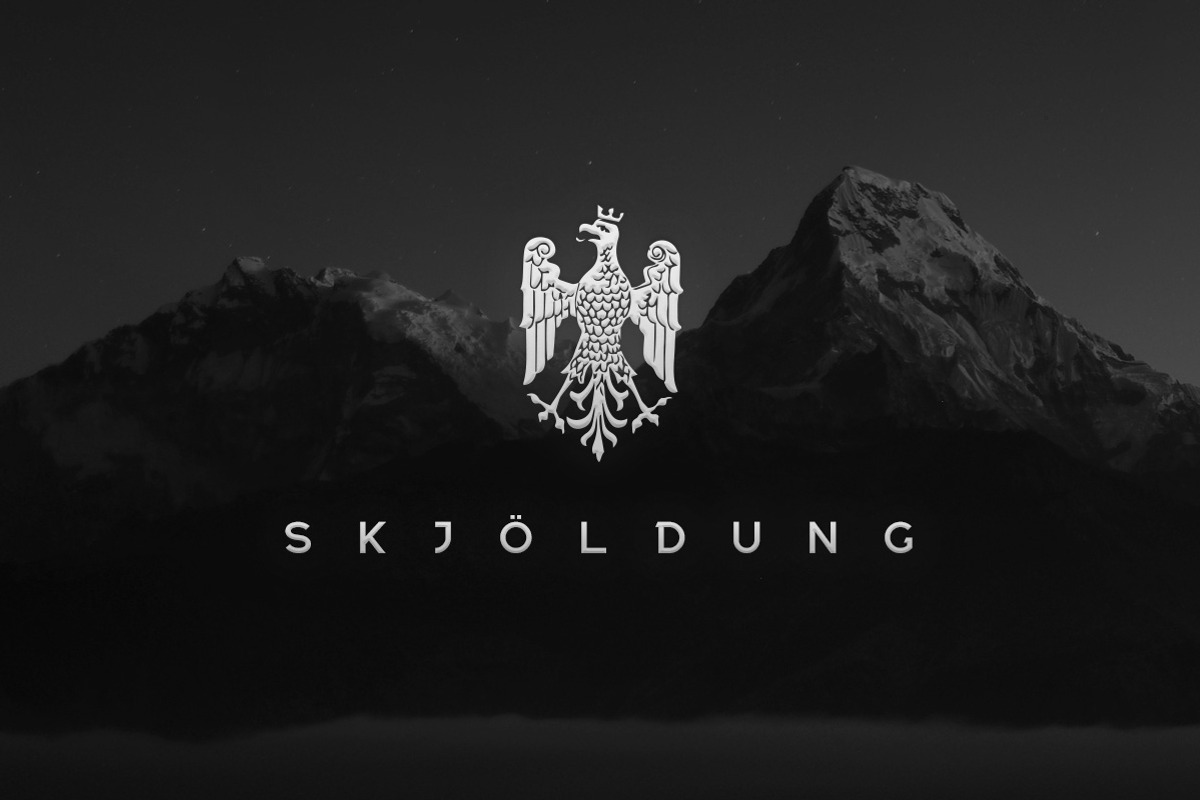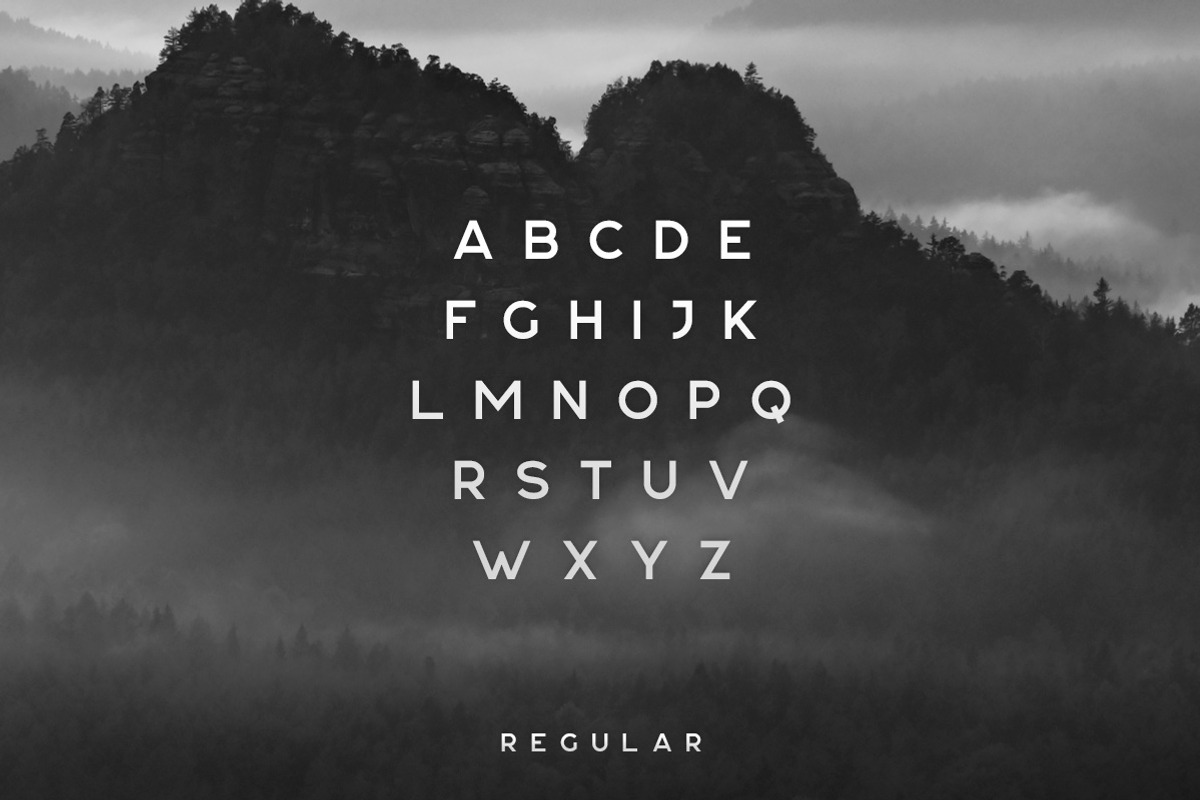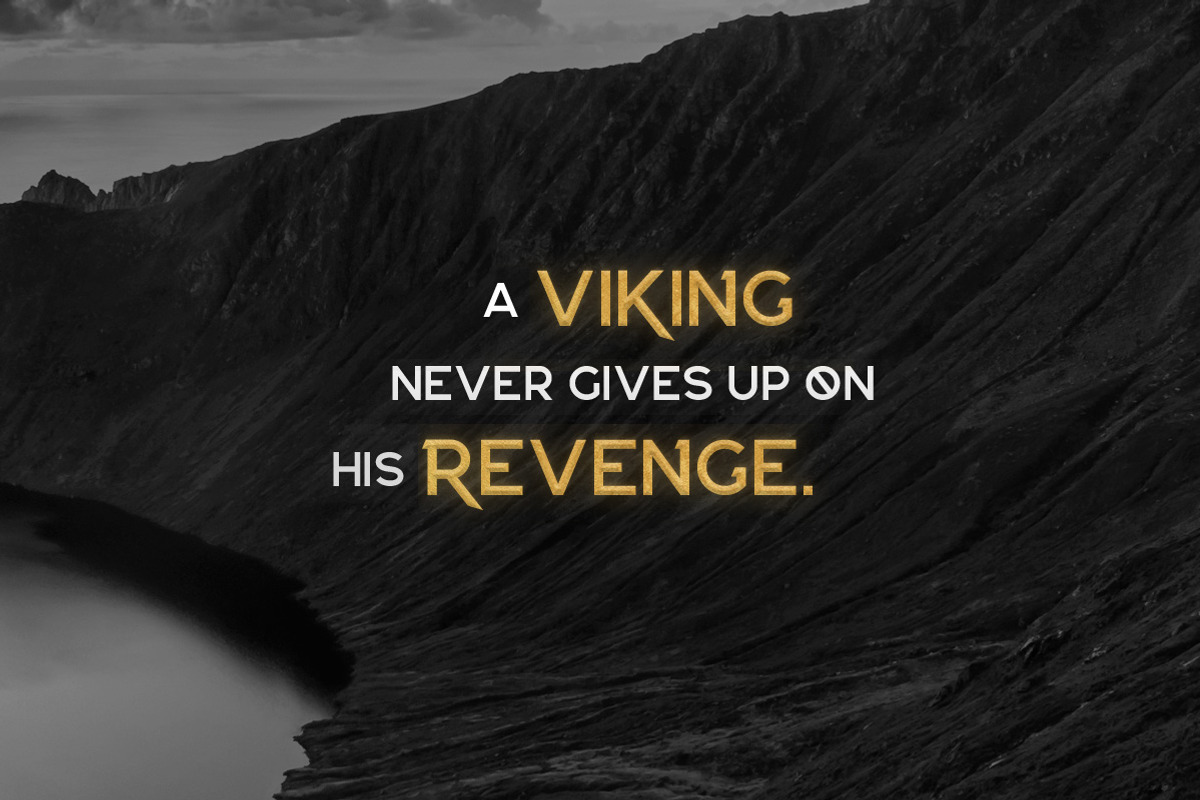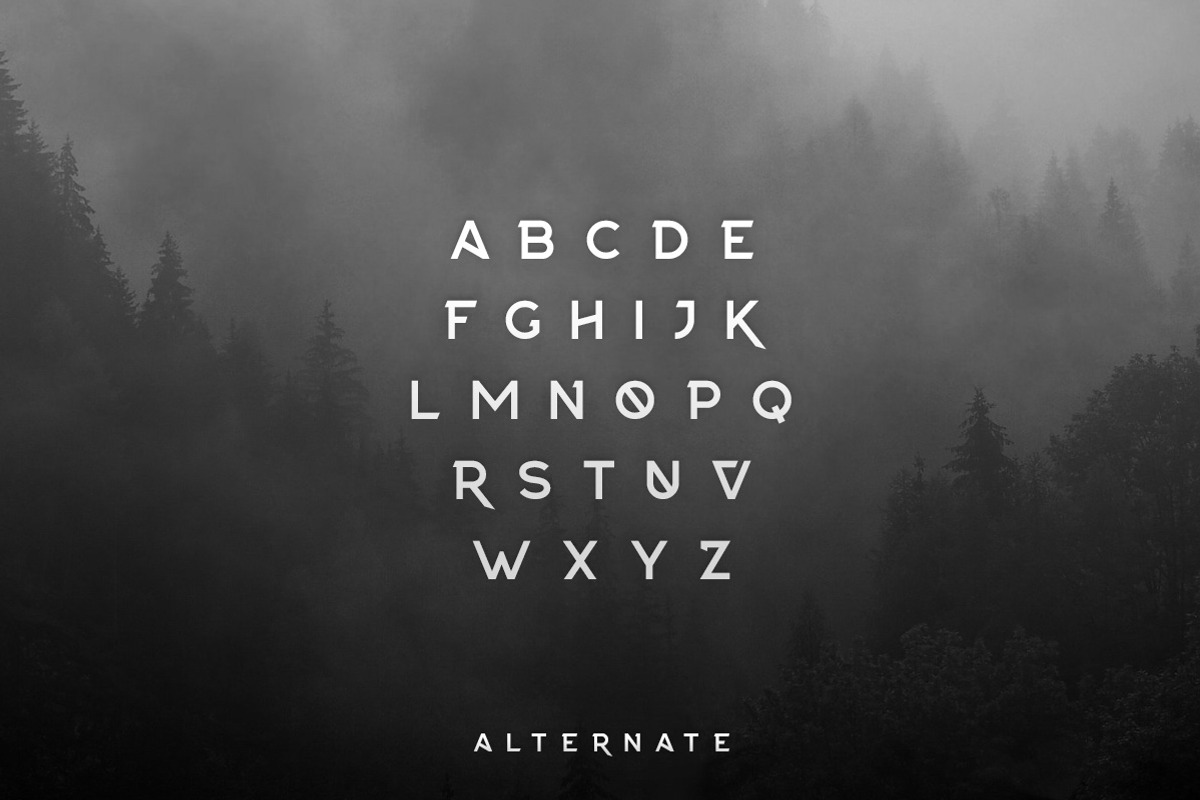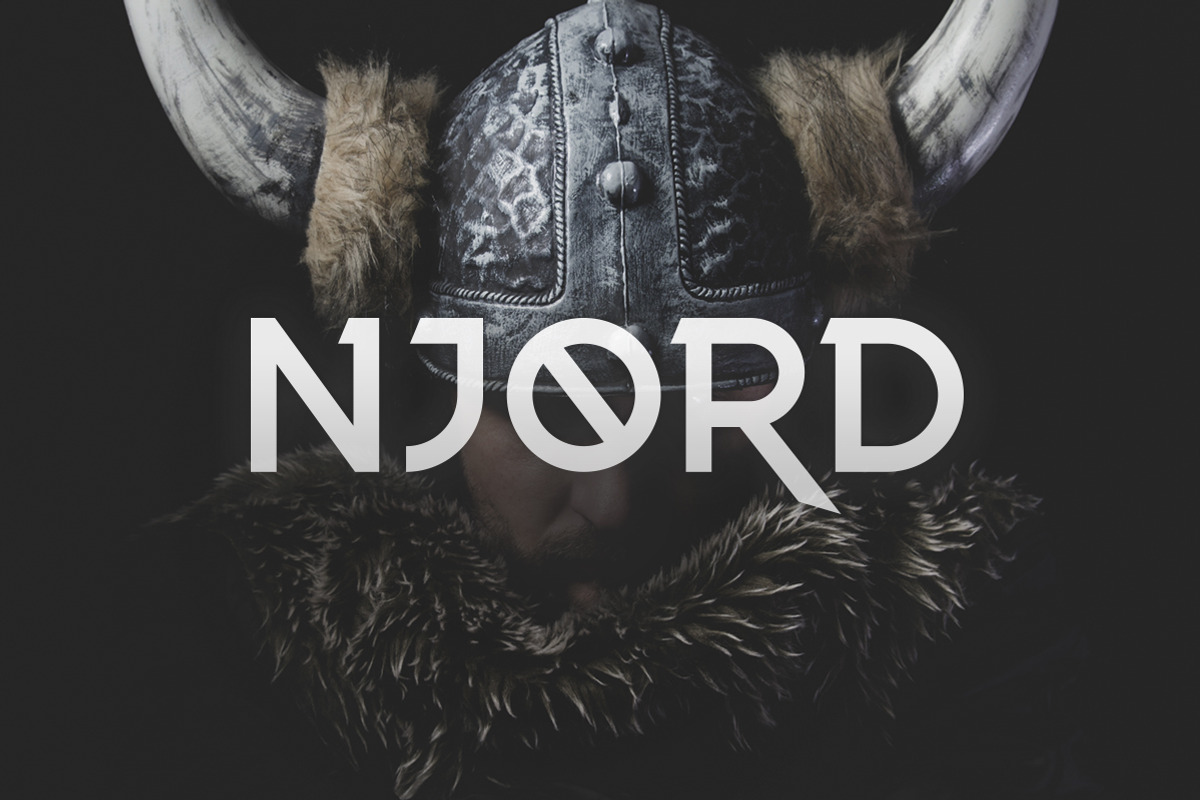
Njord Typeface
Njord is a display typeface that features a unique alternate style. The typeface includes uppercase multilingual letters, numbers and punctuation. I've found the font to be great for logos, titles and I enjoy using it with really wide spacing.
Really love this font! Going to use it for my YouTube videos graphics, and it fits my theme perfect! Its modern and nordic at the same time
I love this typeface! It works perfectly for my book cover design. I needed something that was edgy, modern, unique, and reminiscent of Nordic culture. This is exactly that.